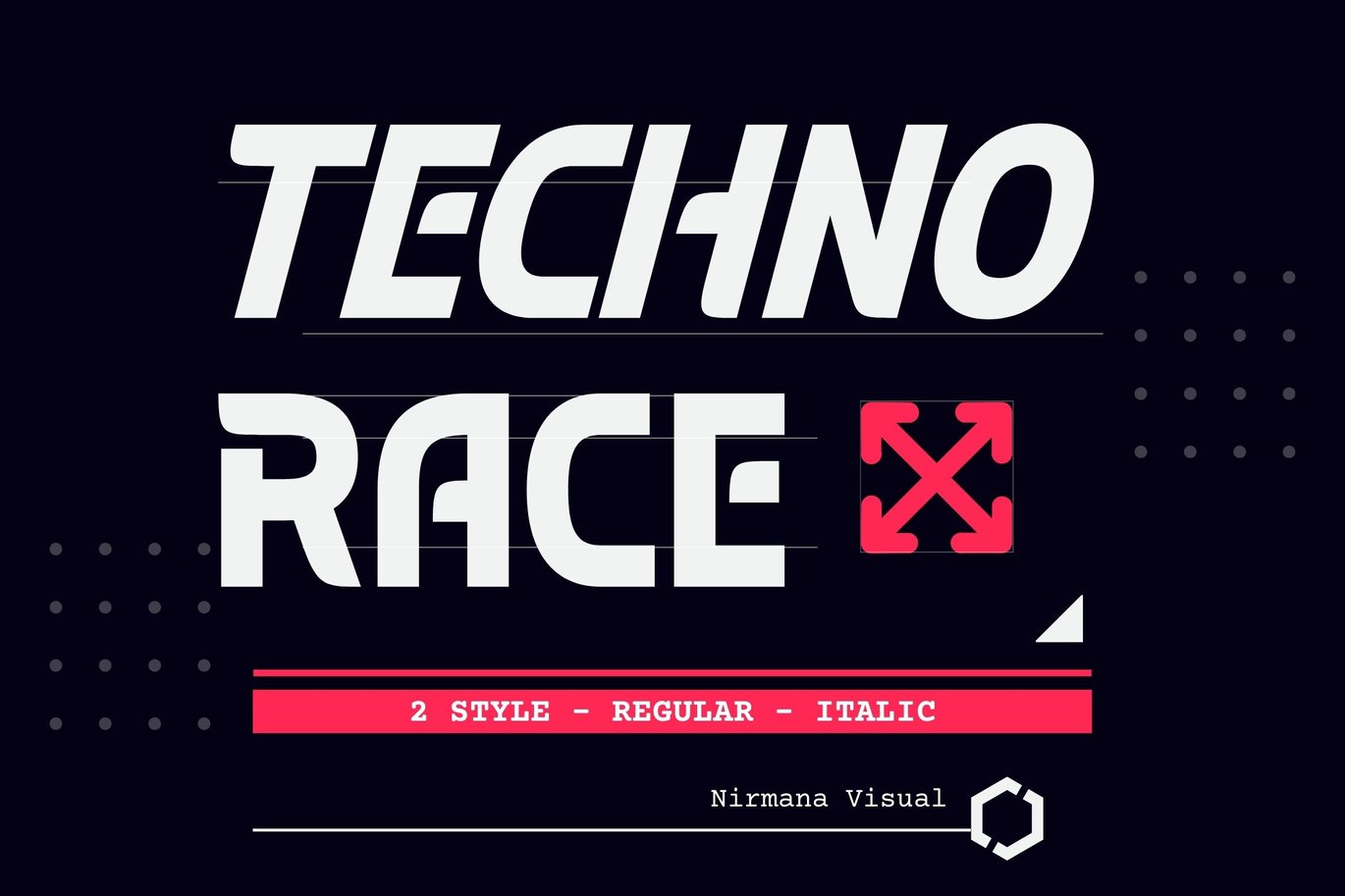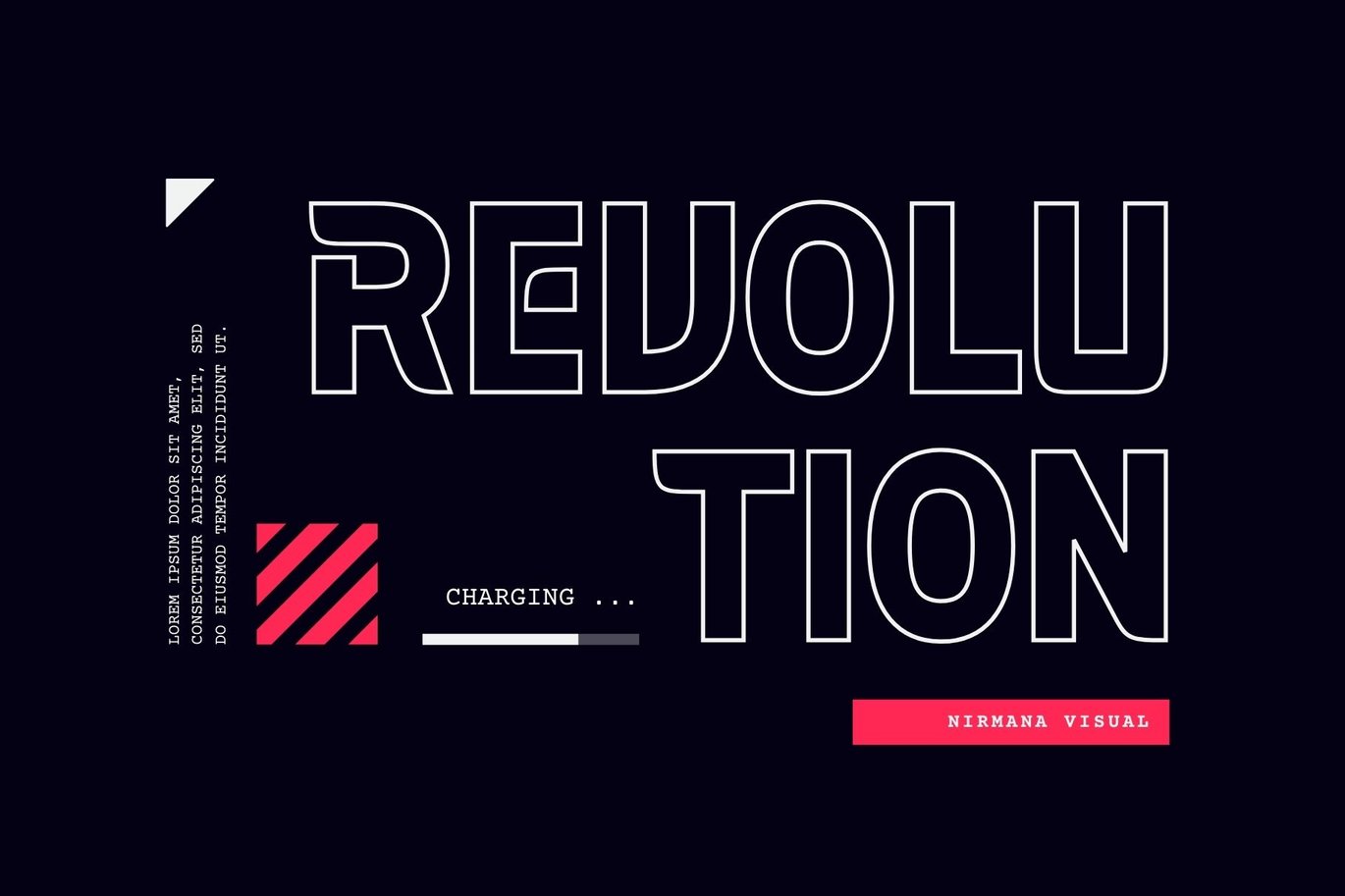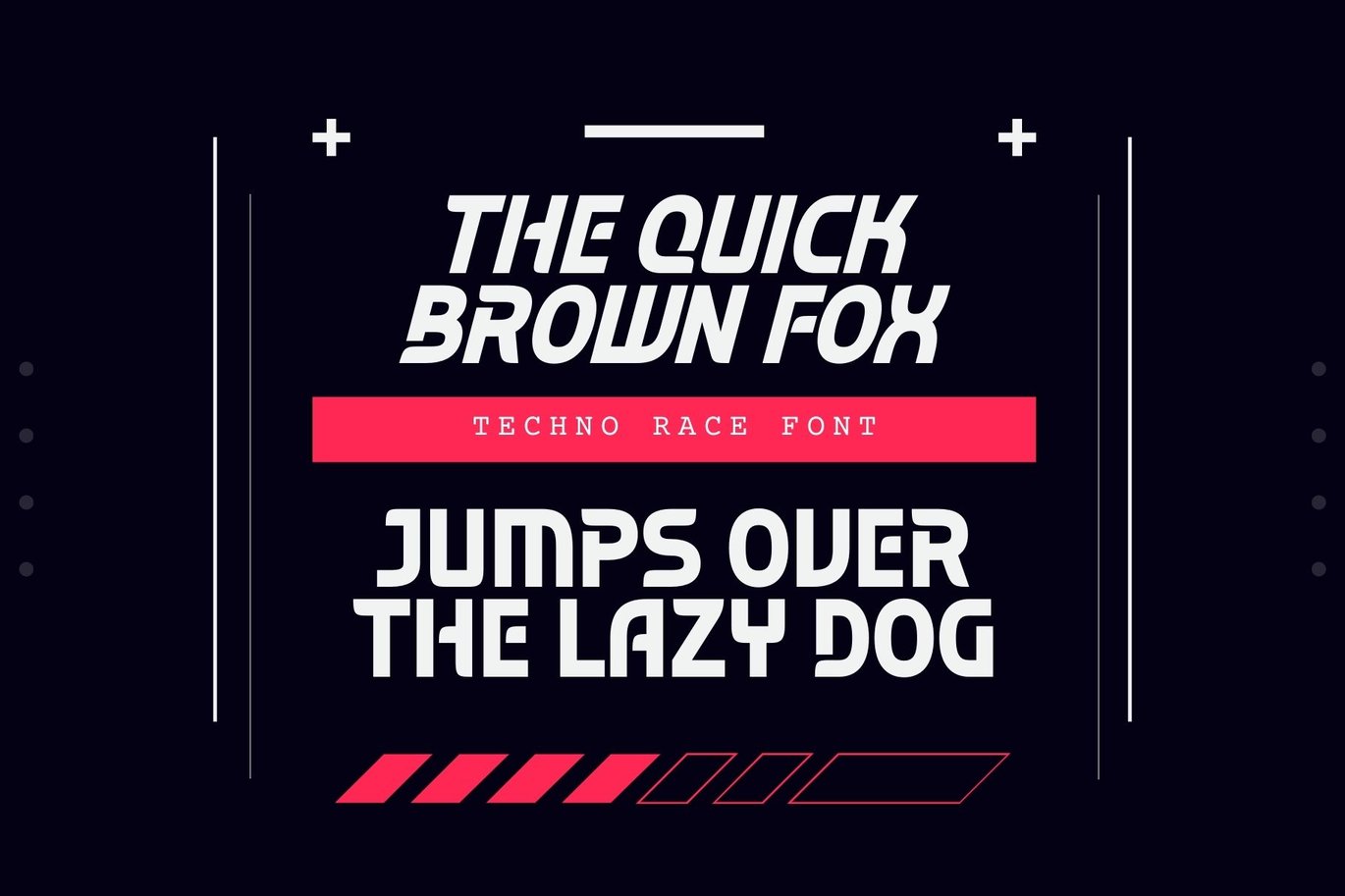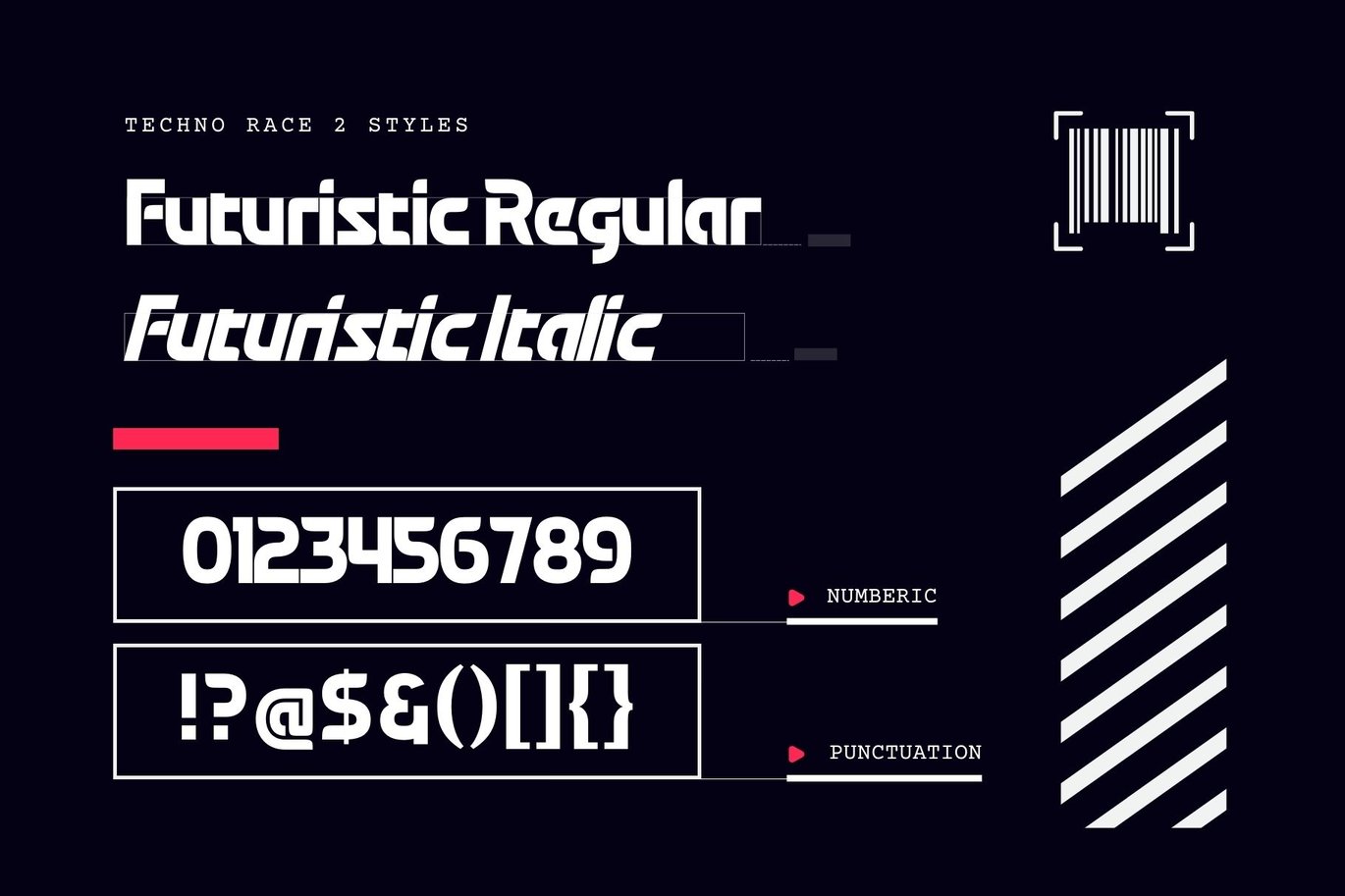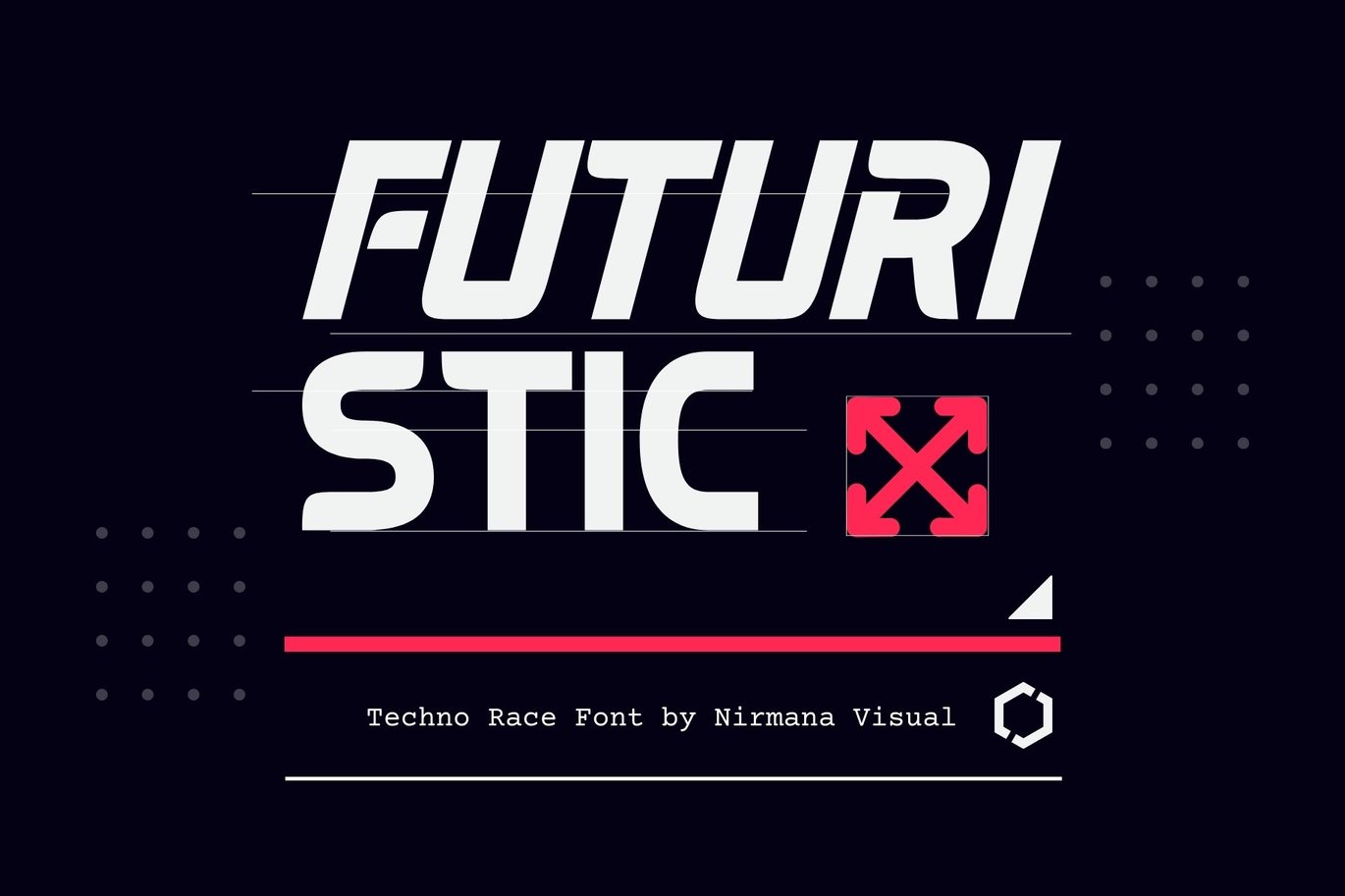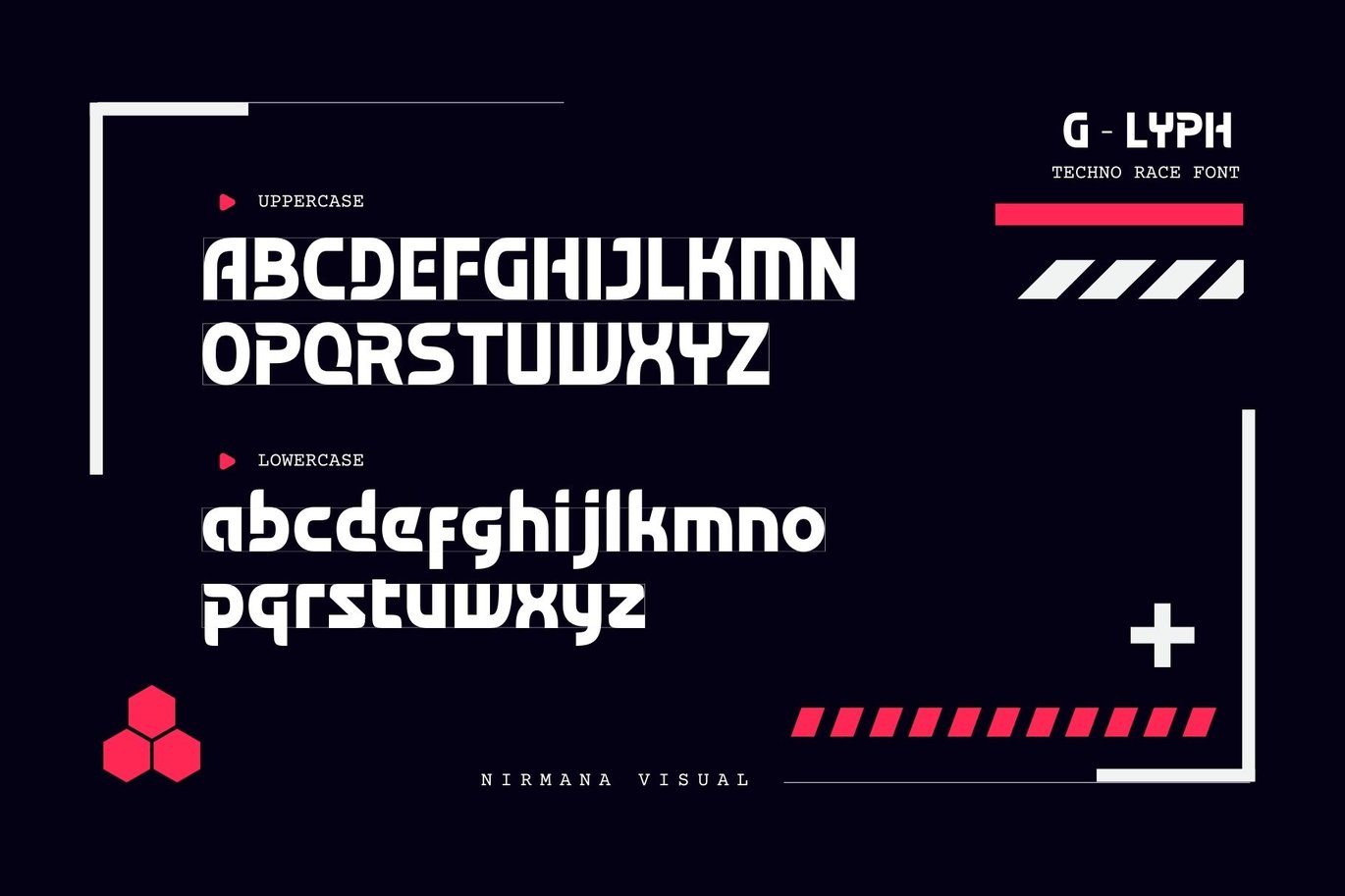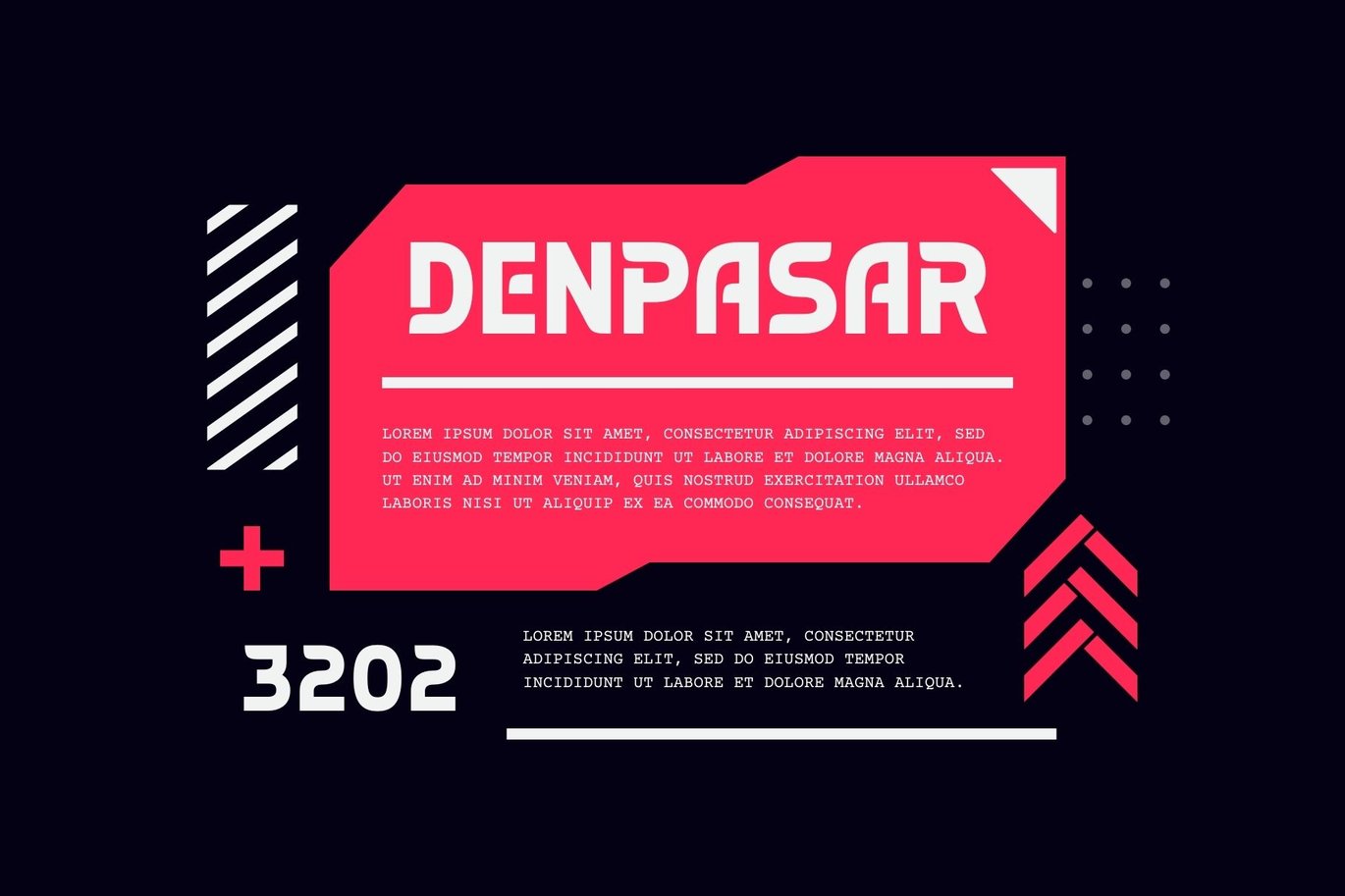
Techno Race – Sport Font
Techno Race – Sport Display with strong and Sporty. very suitable for the title, logo, typography, clothes, magazines, brochures, packaging and much more for your design needs, making your designs more modern and professional.